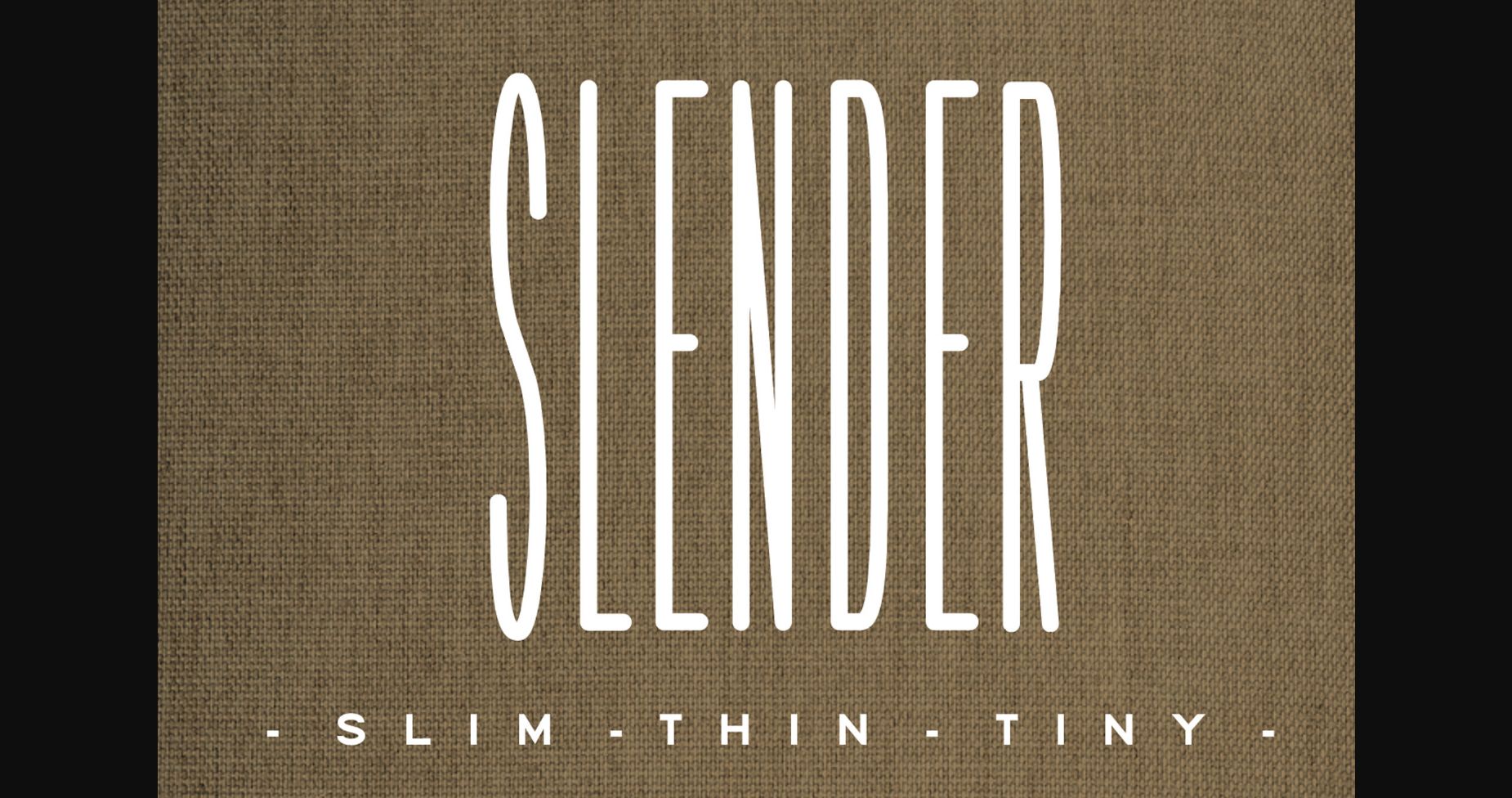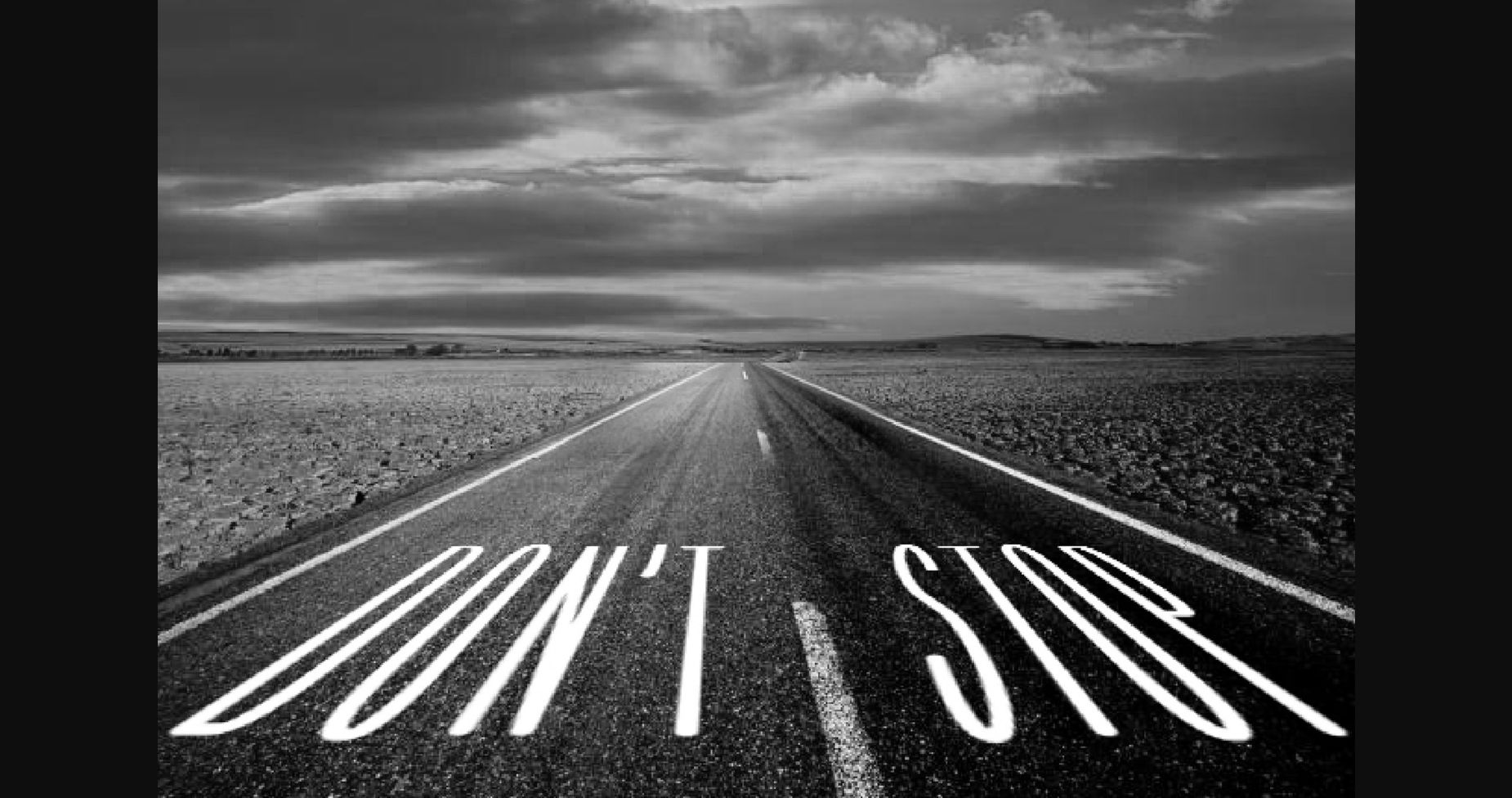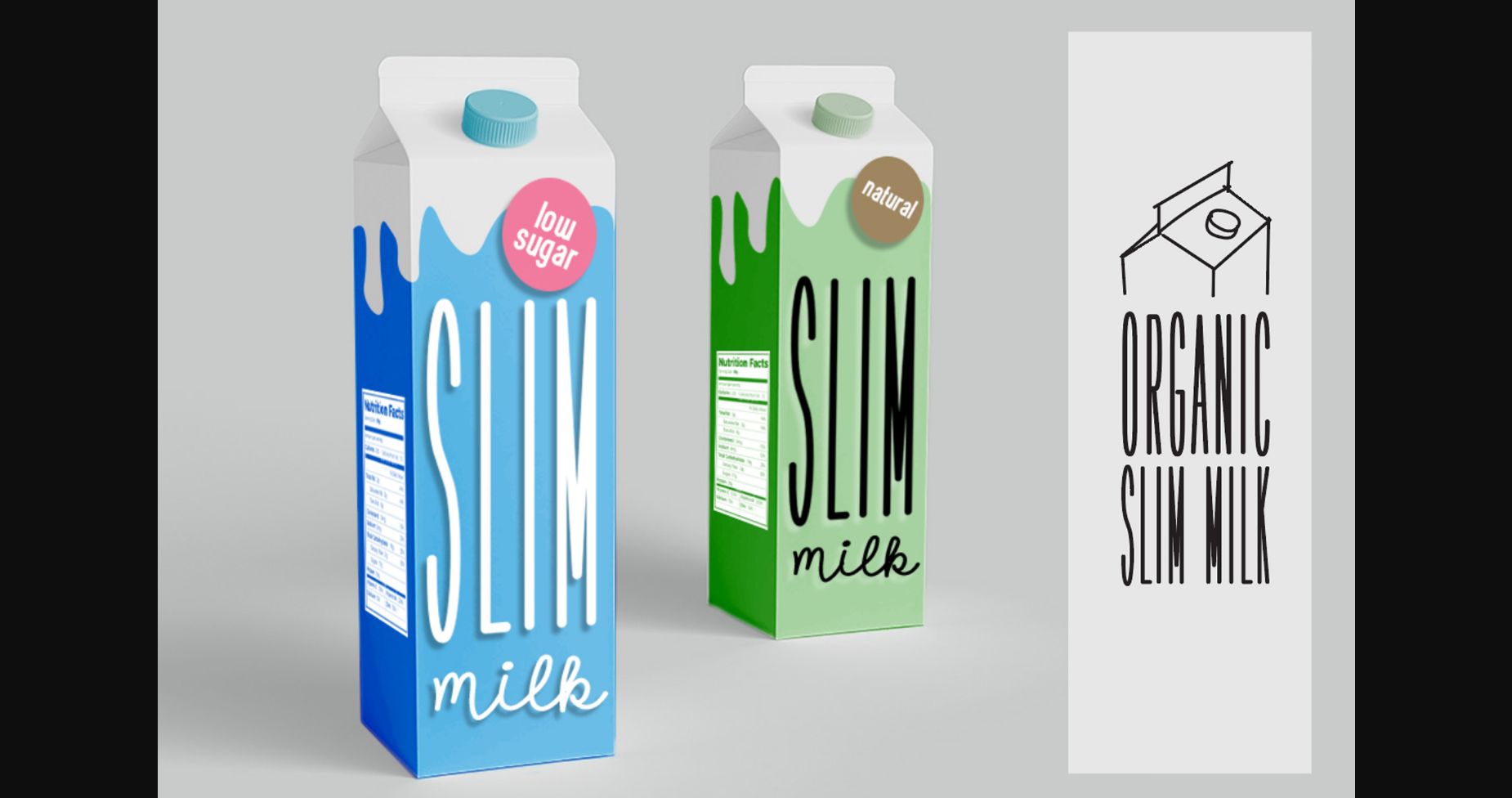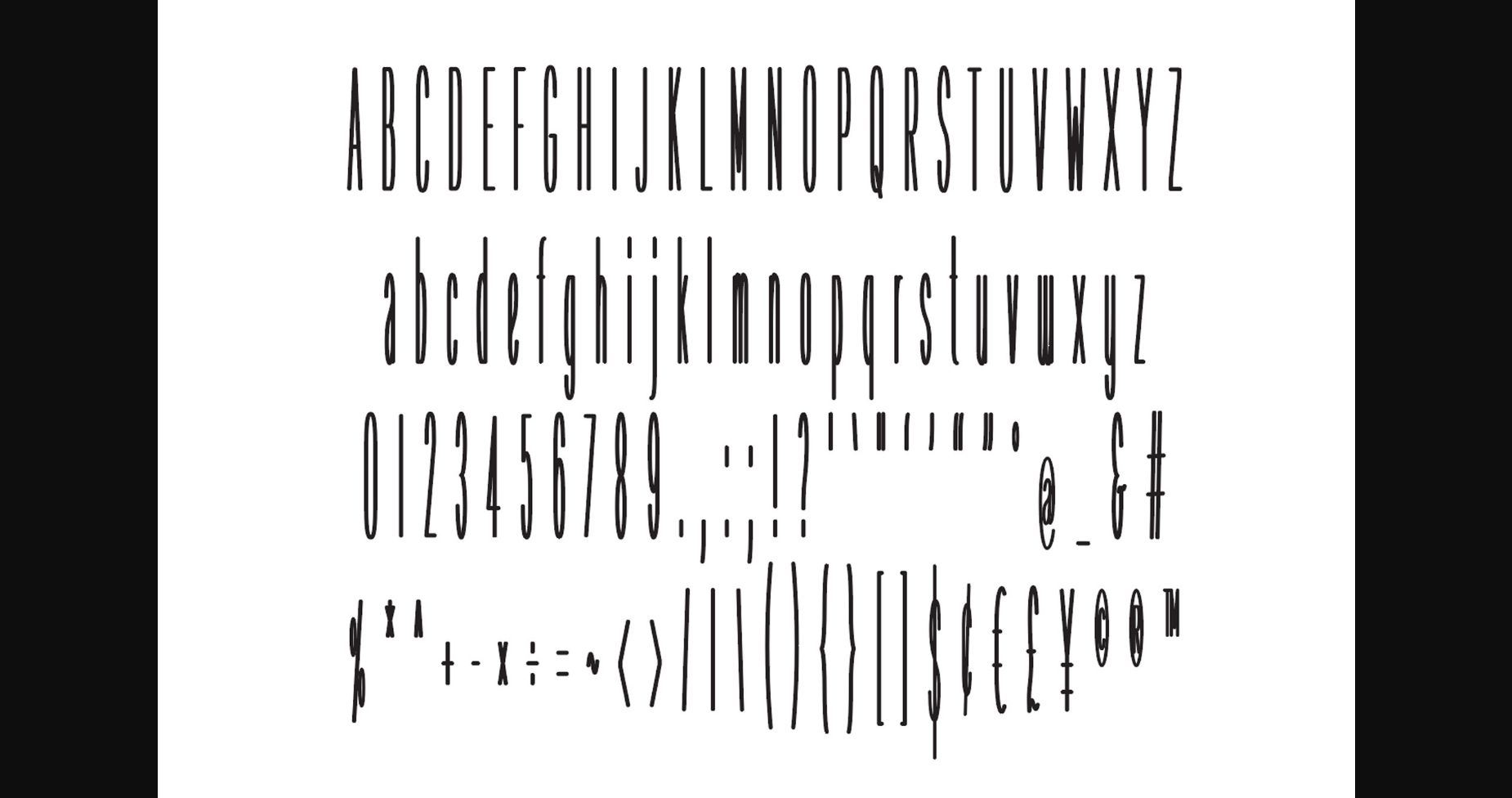
Slender Font
About Slender Font
Slender is a thin and tall sans serif font. It can easily be matched to an incredibly large set of projects, so add it to your creative ideas and notice how it makes them stand out!